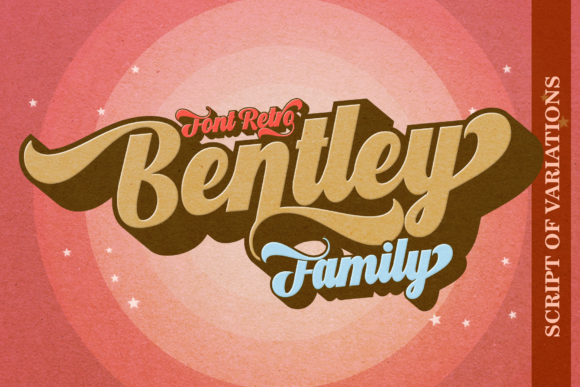
Bentley Font: A Timeless Vintage Aesthetic for Your Designs
In the world of typography, few fonts evoke the same sense of nostalgia and sophistication as the Bentley font. This handwritten font has been making waves in the design community, and for good reason. With its unique blend of playfulness and elegance, Bentley feels playfully nostalgic and delivers an incredible vintage aesthetic that’s perfect for adding a special retro touch to any design idea you can think of.
What Makes Bentley Font So Special?
Bentley font is a carefully crafted handwritten font that boasts a range of features that set it apart from other fonts. Here are just a few of the key characteristics that make Bentley font so unique:
- Handwritten style: Bentley font is a genuine handwritten font, created with love and care to capture the imperfections and quirks of human handwriting.
- Vintage aesthetic: With its elegant lines and classic letterforms, Bentley font exudes a timeless vintage charm that’s perfect for designs that require a touch of nostalgia.
- Playful feel: Despite its sophisticated appearance, Bentley font has a playful side that’s perfect for designs that require a bit of whimsy and personality.
- Highly versatile: Whether you’re designing a logo, a poster, or a website, Bentley font is highly versatile and can be used in a wide range of design applications.
How to Use Bentley Font in Your Designs
Bentley font is an incredibly versatile font that can be used in a wide range of design applications. Here are just a few ideas to get you started:
- Logos and branding: Use Bentley font to create a unique and memorable logo that captures the essence of your brand.
- Posters and flyers: Add a touch of vintage glamour to your posters and flyers with Bentley font.
- Websites and blogs: Use Bentley font to add a personal touch to your website or blog.
- Social media graphics: Create eye-catching social media graphics with Bentley font.
- Packaging and labels: Use Bentley font to add a touch of elegance to your packaging and labels.
Typography Tips for Using Bentley Font
To get the most out of Bentley font, here are a few typography tips to keep in mind:
- Use it sparingly: While Bentley font is incredibly versatile, it’s best to use it sparingly to avoid overwhelming your design.
- Pair it with contrasting fonts: Pair Bentley font with contrasting fonts to create visual interest and hierarchy.
- Experiment with font sizes: Don’t be afraid to experiment with different font sizes to add emphasis and create visual hierarchy.
- Pay attention to spacing: Make sure to pay attention to spacing and kerning to ensure that your text is easy to read.
Design Inspiration: Examples of Bentley Font in Action
Still not sure how to use Bentley font in your designs? Here are a few examples of Bentley font in action:
- Vintage-inspired posters: Use Bentley font to create eye-catching posters that evoke a sense of nostalgia.
- Retro-style logos: Create unique and memorable logos that capture the essence of your brand with Bentley font.
- Elegant packaging: Add a touch of elegance to your packaging with Bentley font.
- Playful social media graphics: Create eye-catching social media graphics with Bentley font.
In conclusion, Bentley font is a unique and versatile font that can add a special retro touch to any design idea you can think of. With its handwritten style, vintage aesthetic, and playful feel, Bentley font is perfect for designers who want to create designs that stand out from the crowd.
Whether you’re designing a logo, a poster, or a website, Bentley font is a great choice. So why not give it a try and see how it can elevate your designs?